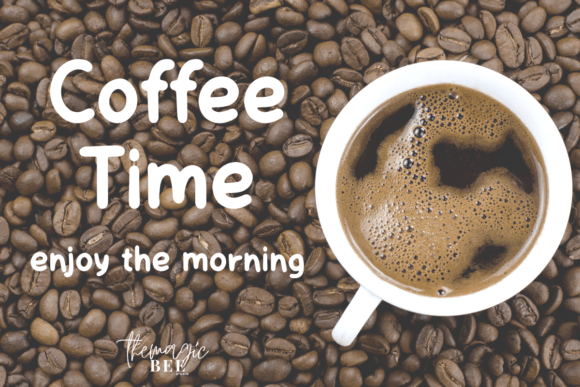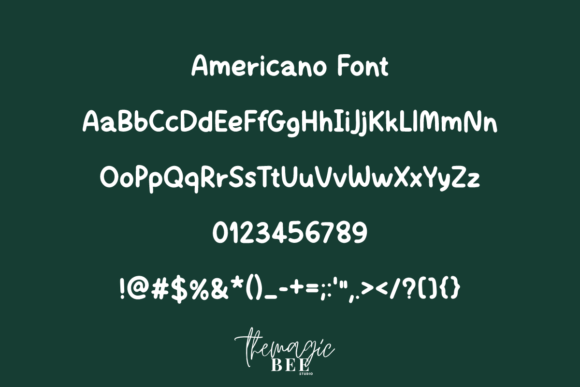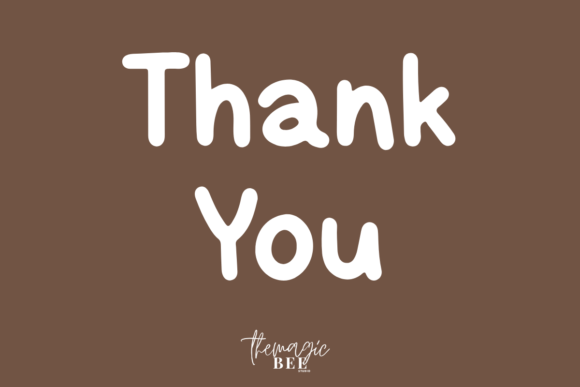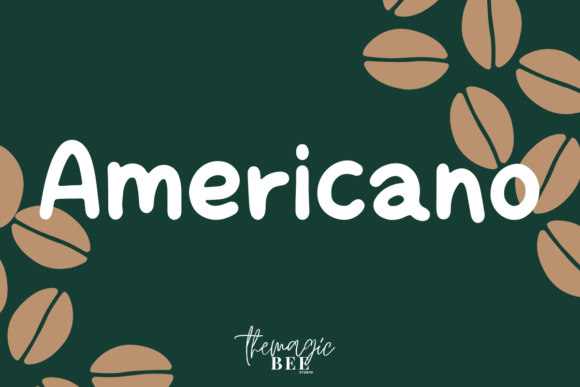
Discover the Perfect Blend of Fun and Function with the Americano Font
Have you ever sat at your desk, surrounded by scraps of paper, glue sticks, and an endless supply of ideas, only to feel stuck? That’s where I was when I stumbled upon the Americano Font – a game-changing addition to my design arsenal. Its playful, handwritten style instantly sparked a wave of creativity, and I knew I had to share it with fellow designers and crafters.
The Americano Font is more than just a pretty face; it’s a versatile tool designed to bring a personal touch to your projects. Whether you’re creating digital designs, crafting handmade cards, or preparing presentations, this font is sure to add a touch of warmth and character. As a designer, you know how valuable it is to have a reliable go-to font that can elevate your work and make it truly special – that’s exactly what the Americano Font delivers.
Americano Font Key Features
- Unique Characteristics: The Americano Font is known for its clean, modern design and subtle texture, which gives it a unique, high-end feel.
Designer Review: Americano Font
As a designer, I’ve had the chance to work with the Americano font, and I must say it’s a unique and interesting choice. Here’s what I think:
- ✨ Wide range of weights: Americano comes in 12 weights, ranging from Light to Black, which makes it a great choice for designers who want to create complex and layered typography.
- ✨ Modern feel: The font has a modern and sleek feel to it, which makes it perfect for designers who want to give their projects a contemporary look.
- ✨ Versatile: Americano can be used in a variety of contexts, from body text to headlines, and even for titles and logos.
- ⚠️ Limited script support: Americano doesn’t have a lot of script support, which can make it difficult to use for designers who need to create complex text layouts.
- ⚠️ Not ideal for small text: The font can be difficult to read at small sizes, which makes it not ideal for designers who need to use it for body text or other small text applications.
Overall, I think Americano is a solid choice for designers who want a modern and versatile font. While it has some limitations, it’s definitely worth considering for projects that require a clean and contemporary look.
Tips for Getting the Most Out of Americano Font
Use the Americano font for designs that require a classic, sophisticated look. It pairs well with simple backgrounds and bold colors. Experiment with font sizes and styles to create a unique design.
The Americano font is suitable for a variety of designs, including:
- Menus and restaurant signage
- Editorial and magazine layouts
Alternatives to Americano Font
Montserrat is a sans-serif font designed by Julieta Ulanovsky. It’s a modern and geometric font perfect for digital interfaces and headings. Montserrat is a great alternative to Americano Font when you need a clean and minimalist look. It’s more condensed than Americano Font, making it ideal for tight spaces.
Inter is a modern sans-serif font designed by Rasmus Andersson. It’s a highly legible font that’s perfect for body text and headings. Inter is similar to Americano Font in terms of its clean and minimalist design, but it’s more versatile and works well in a variety of contexts.